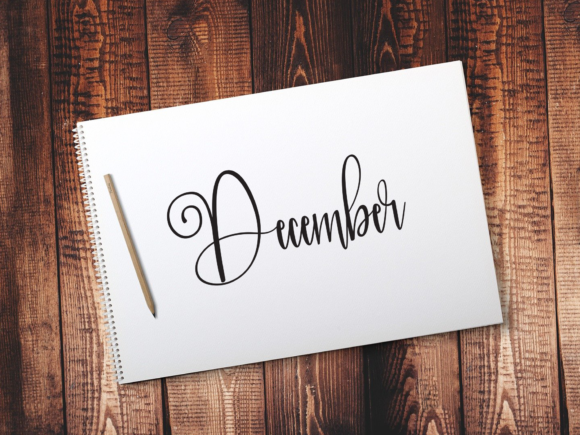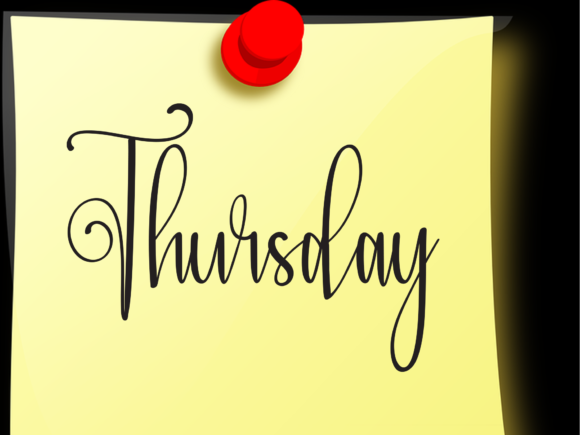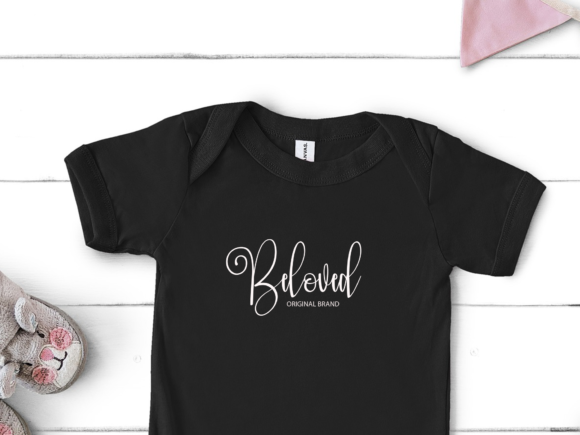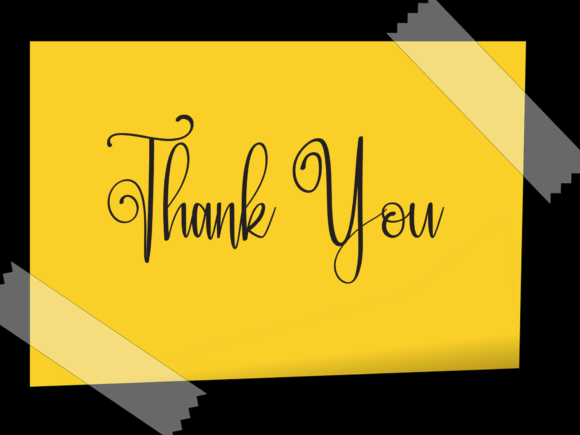
Snowman Font
About Snowman Font
Snowman is a sweet handwritten font that is made with great care in order to produce the expected outcomes. This font can be used for writing various kinds of products according to their respective needs.